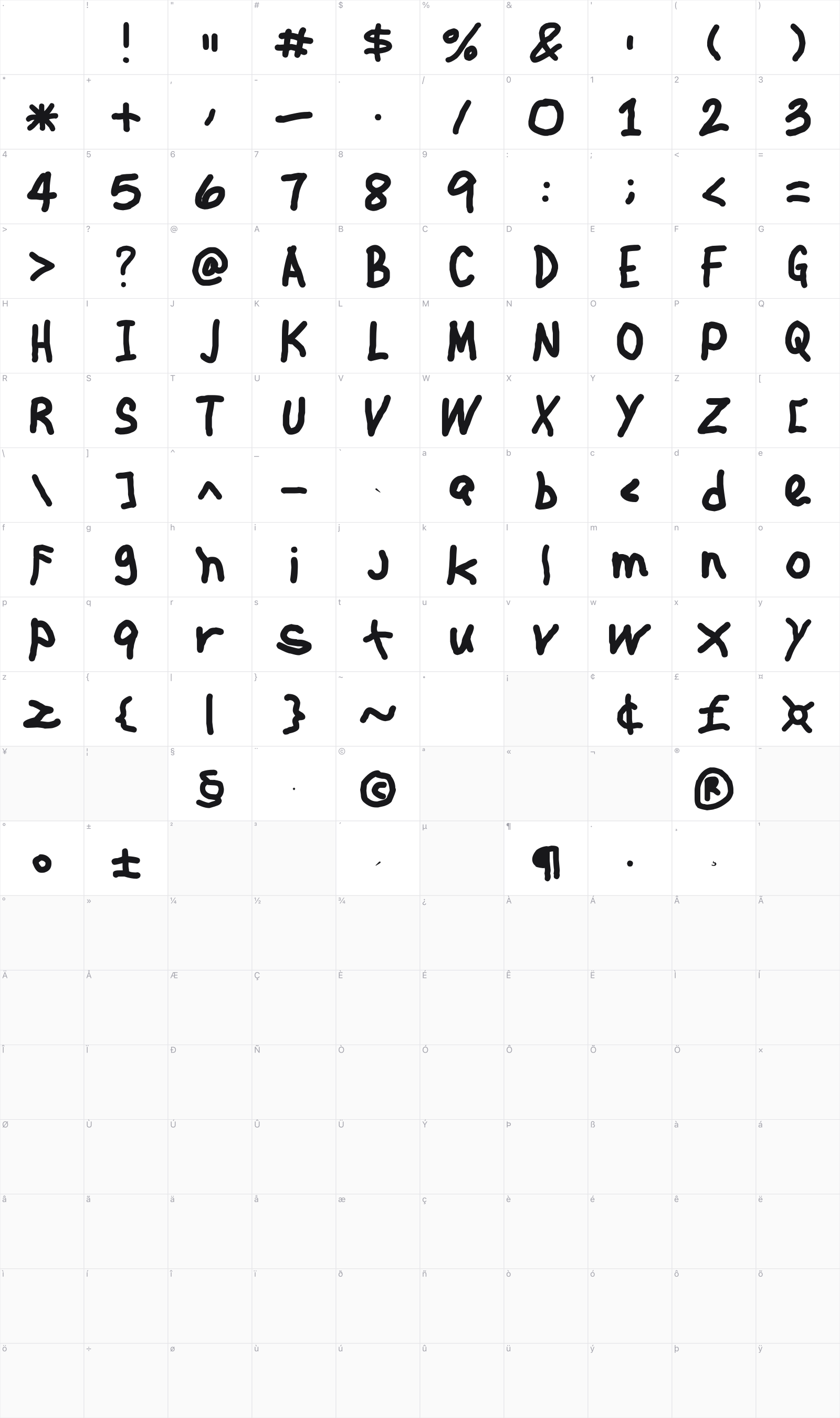
Jehzlau Concepts
Jehzlau Concepts is a thick, marker-style handwritten face by Jehzlau with bold strokes and a loose, slightly quirky rhythm that feels like someone lettering a sign in a hurry. The characters have real personality, with uneven baselines and casual weight distribution that keep things playful and informal. Best used for headlines, social media graphics, and branding where you want something that reads as genuinely hand-done rather than digitally polished.